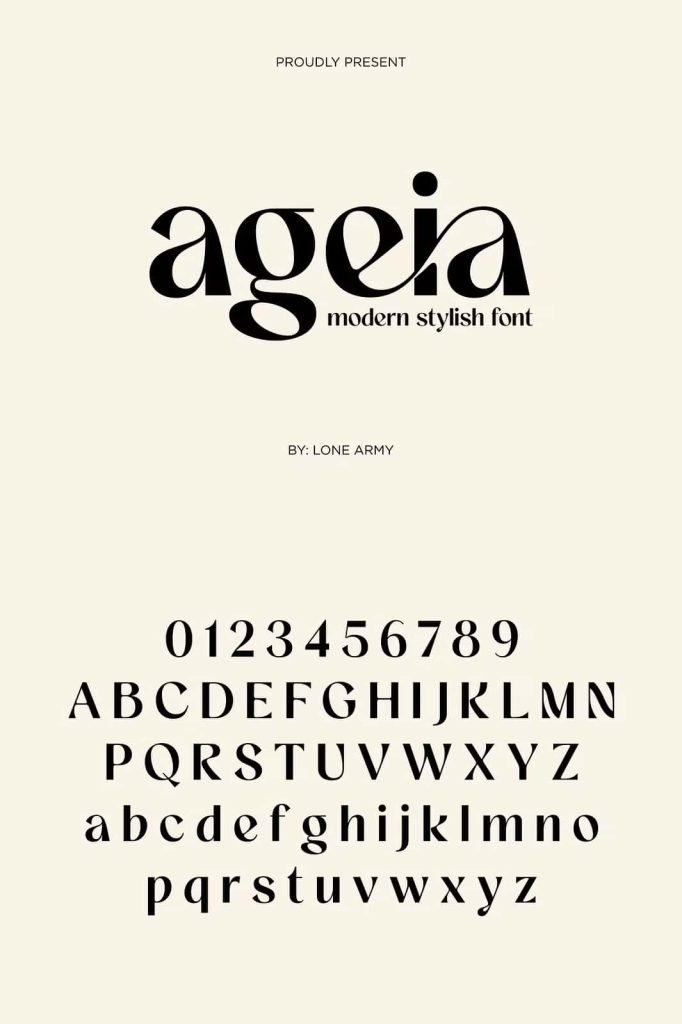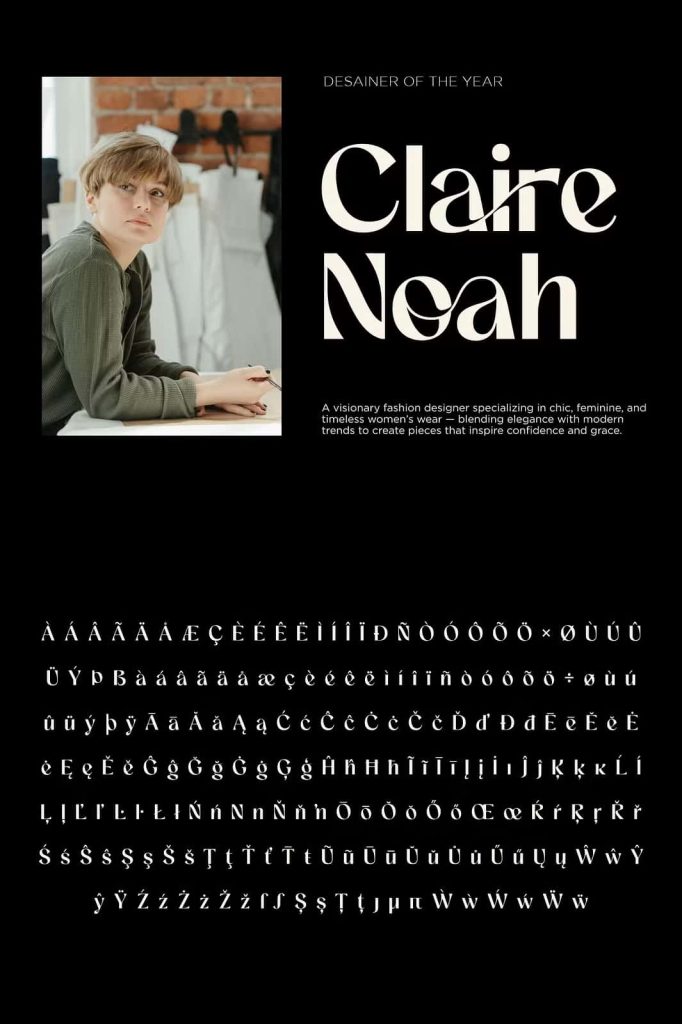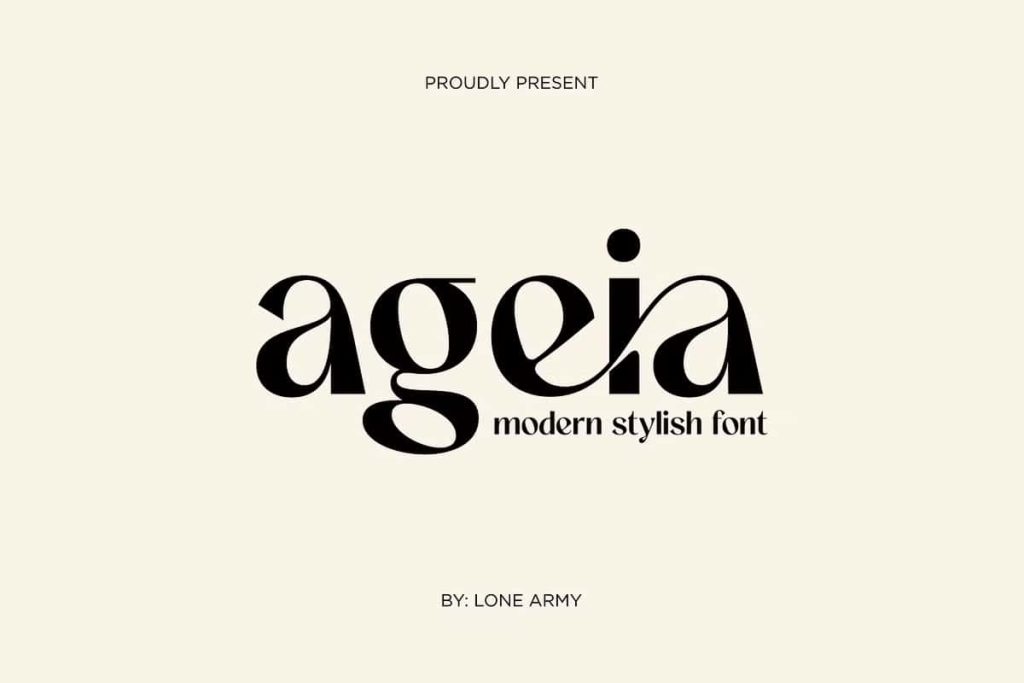
Ageia Modern Luxury Font – Contemporary Elegance with Retro and Tropical Charm
Ageia Modern Luxury Font is a sophisticated contemporary typeface that combines sleek modern aesthetics with subtle retro influences and refreshing tropical vibes. Carefully crafted to deliver elegance and personality, Ageia stands out through its clean letterforms, stylish proportions, and beautiful stylistic ligatures that create smooth, expressive typography. The result is a font that feels luxurious, inviting, and effortlessly stylish, making it an excellent choice for creative professionals looking to build memorable visual identities.
Inspired by the harmony between modern minimalism and nostalgic design, Ageia captures the warmth of tropical destinations while maintaining the refinement expected from premium typography. Whether you are designing for luxury fashion brands, lifestyle products, boutique businesses, editorial layouts, or sophisticated marketing campaigns, Ageia provides the flexibility to create polished designs that leave a lasting impression.
Its elegant appearance allows every word to feel carefully crafted, while the subtle retro details introduce character without overwhelming the overall composition. This balance makes Ageia a timeless font that performs beautifully across both digital and print media.
Modern Luxury Meets Timeless Style
Ageia has been designed to embody the essence of contemporary luxury. Every letter features balanced proportions, clean lines, and refined curves that communicate confidence and sophistication. Unlike many decorative display fonts, Ageia maintains excellent readability while delivering enough personality to become the visual centerpiece of any project.
The font blends minimalist modern design with subtle vintage inspiration, resulting in typography that feels fresh while paying tribute to classic design traditions. This unique combination allows Ageia to adapt effortlessly to evolving design trends without losing its timeless appeal.
Whether used for bold headlines or elegant branding, Ageia consistently delivers a polished and premium appearance.
Beautiful Stylistic Ligatures for Natural Typography
One of Ageia’s defining features is its collection of elegant stylistic ligatures. These thoughtfully designed letter combinations create smoother word shapes and more natural text flow, enhancing the overall beauty of your typography.
Instead of relying on standard character connections, the ligatures introduce graceful transitions that add individuality to logos, headlines, packaging, invitations, and editorial titles. These subtle details elevate ordinary text into refined visual compositions while maintaining clarity and readability.
The result is typography that feels handcrafted, fluid, and highly professional.
Key Features
- Modern luxury typeface with elegant contemporary styling.
- Subtle retro influences for timeless visual appeal.
- Fresh tropical-inspired personality.
- Beautiful stylistic ligatures for smooth typography.
- Clean and highly readable letterforms.
- Perfect for premium branding and display typography.
- Suitable for both print and digital media.
Inspired by Tropical Warmth and Sophisticated Living
Ageia captures the relaxed elegance associated with tropical destinations while preserving the refined qualities of luxury branding. Its graceful letterforms evoke feelings of sunshine, coastal living, premium resorts, and sophisticated lifestyles without becoming overly decorative.
This unique atmosphere makes Ageia particularly effective for businesses and brands that want to communicate relaxation, exclusivity, creativity, and modern elegance. The font creates an inviting visual experience that appeals to audiences seeking both beauty and authenticity.
Perfect for Luxury Branding
Typography plays a vital role in building strong brand recognition, and Ageia provides businesses with a refined foundation for premium visual identities. Its elegant structure communicates quality, professionalism, and attention to detail while its unique ligatures add memorable character.
Ageia is an outstanding choice for:
- Luxury fashion brands
- Beauty and skincare products
- Jewelry brands
- Boutique businesses
- Lifestyle companies
- Interior design studios
- Creative agencies
- Hospitality brands
- Resort marketing
- Premium product packaging
Its sophisticated appearance helps brands establish trust while creating a visual identity that customers easily recognize.
Excellent for Editorial and Creative Design
Ageia performs beautifully in editorial projects where expressive typography becomes an important design element. Magazine covers, book titles, lookbooks, brochures, catalogs, advertisements, and promotional campaigns all benefit from its elegant character and refined proportions.
The combination of modern simplicity and decorative ligatures allows designers to create layouts that feel luxurious while maintaining excellent readability. Large headlines especially showcase the font’s unique personality and artistic details.
Ageia Modern Luxury Font is a refined contemporary typeface that seamlessly combines modern minimalism, retro elegance, and tropical-inspired charm. Featuring stylish ligatures, clean letterforms, and luxurious character, it is an excellent choice for branding, fashion, editorial design, packaging, logos, lifestyle products, websites, and premium marketing materials. Add Ageia Modern Luxury Font to your design collection and create sophisticated typography that communicates warmth, creativity, elegance, and timeless style in every project.